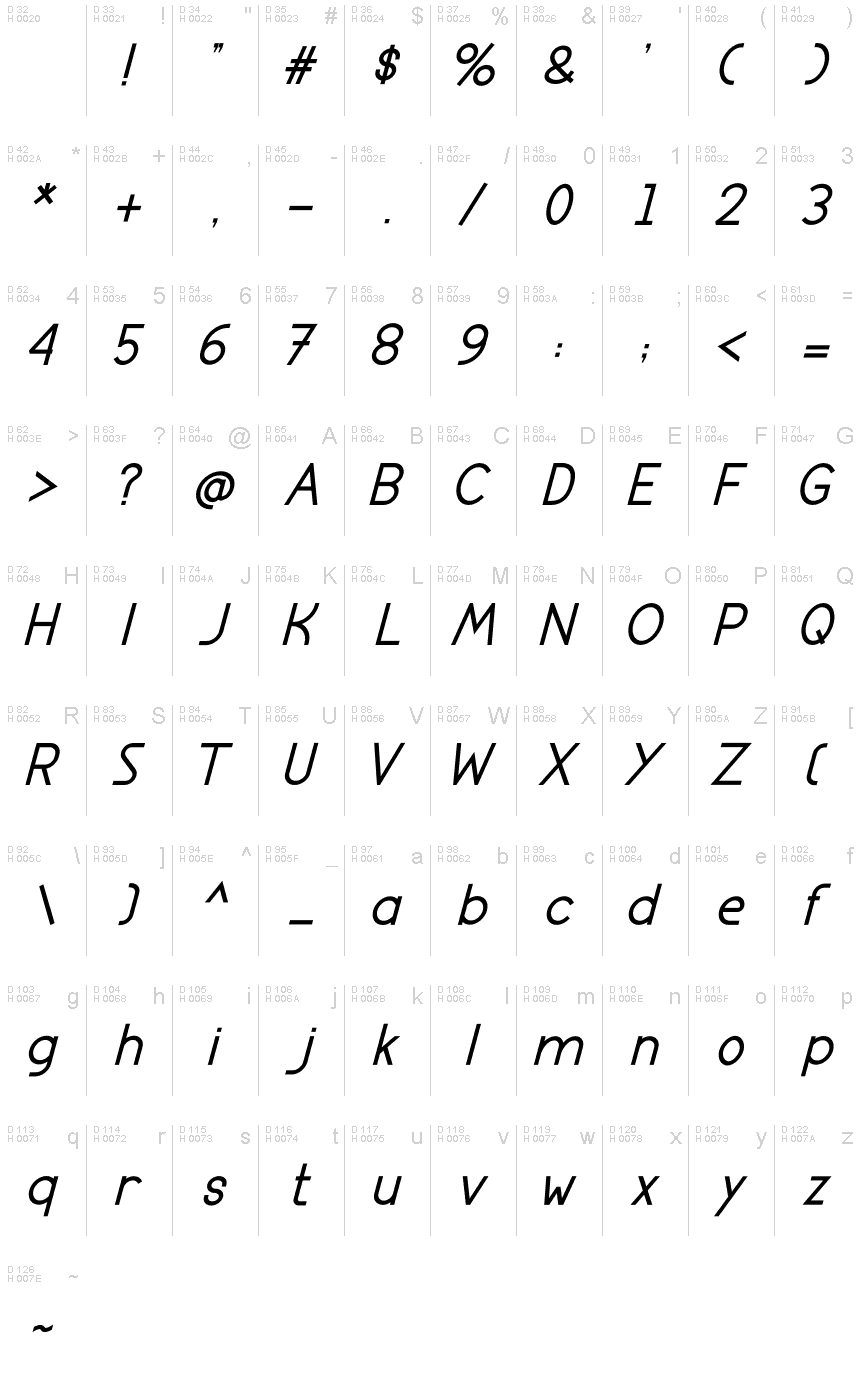
SEND Italic
SEND Italic is a contemporary sans serif font from the renowned designer, Design Vector10. With its semi-light weight and semi-condensed width, this font exudes elegance and sophistication.
Its sleek lines and slanted italics make it perfect for modern branding projects, such as fashion labels or tech startups. The SEND Italic font adds a touch of flair to websites, posters, or packaging designs, providing a visually appealing aesthetic that captures attention.
Enhance your project with this versatile typeface that effortlessly combines professionalism with a hint of creativity.